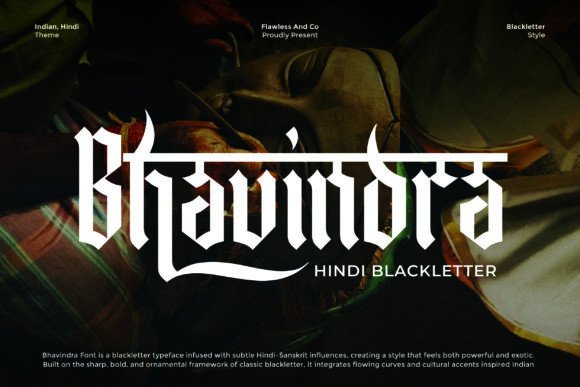
What is Bhavindra Font?
Bhavindra is a Hindi-inspired blackletter font that merges the bold, ornamental framework of traditional blackletter with the cultural richness of Indian aesthetics. Infused with subtle Hindi–Sanskrit influences, it creates a style that is both powerful and exotic—perfect for projects that demand authority, mystique, and cultural depth.
- ✨ Unique and exotic style: Bhavindra’s blend of traditional blackletter and Indian aesthetics is truly one-of-a-kind.
- ✅ High readability: Despite its ornate design, Bhavindra remains surprisingly readable, even at smaller font sizes.
- 🎨 Versatility: This font can be used for a wide range of projects, from bold titles to elegant headings.
- 🤔 Limited use for body text: Bhavindra’s bold design makes it better suited for headings and titles, rather than lengthy paragraphs.
- ⚠️ Kerning issues: As with any font, some users may experience kerning issues, particularly when using certain character combinations.
The Story Behind Bhavindra Font
Bhavindra was designed by a team of typographers who were inspired by the rich cultural heritage of India. They wanted to create a font that would capture the essence of traditional Indian design, while also pushing the boundaries of modern typography. The result is a font that is both timeless and contemporary, perfect for designers who want to add a touch of exotic elegance to their projects.
| Font Name | Bhavindra Font |
| Author | Flawless And Co |
Q: What is the best use for Bhavindra Font?
A: Bhavindra is best used for headings, titles, and other display text, where its bold and ornate design can shine.
Q: Is Bhavindra Font suitable for body text?
A: While Bhavindra is surprisingly readable, it’s not ideal for lengthy paragraphs. It’s best used for shorter text elements, such as headings and titles.
Q: Is Bhavindra Font available in different languages?
A: Bhavindra is primarily designed for use with Hindi and Sanskrit languages, but it can also be used for other languages that use the Latin alphabet.